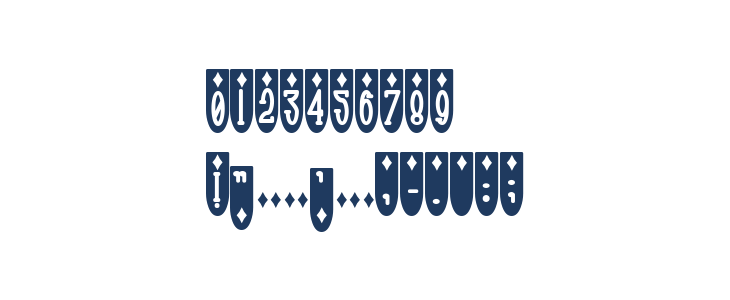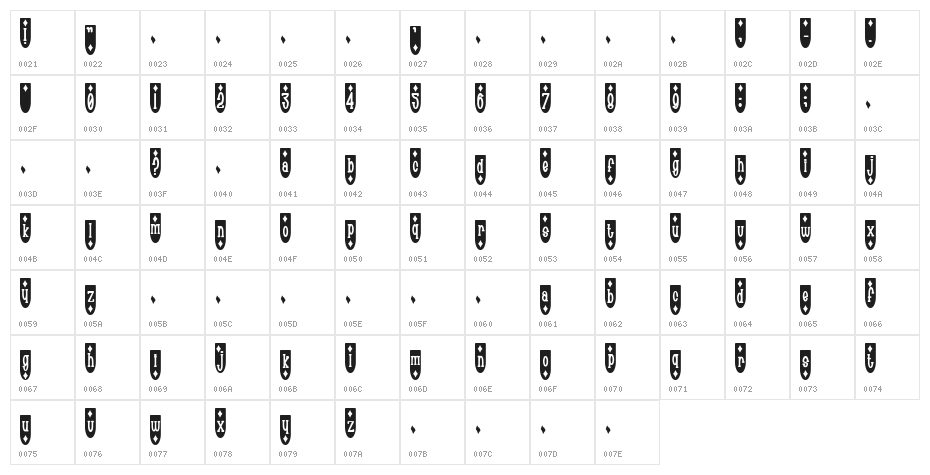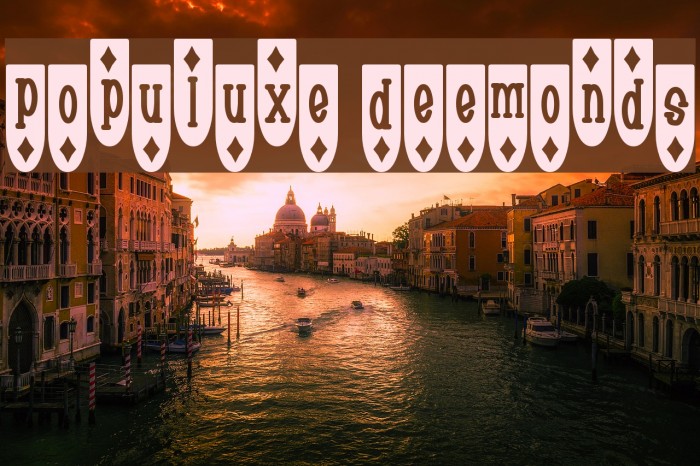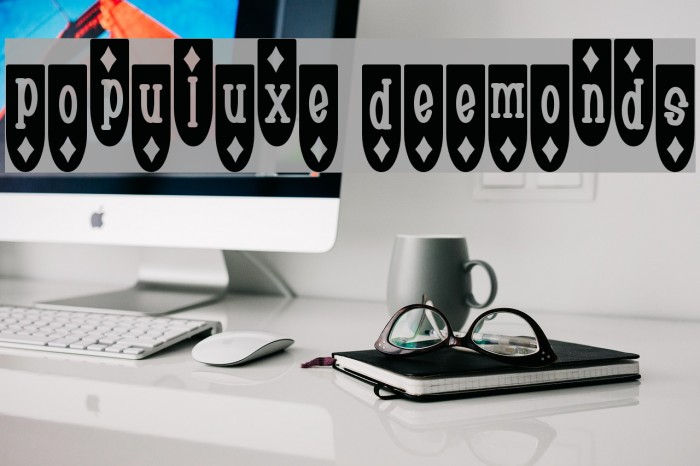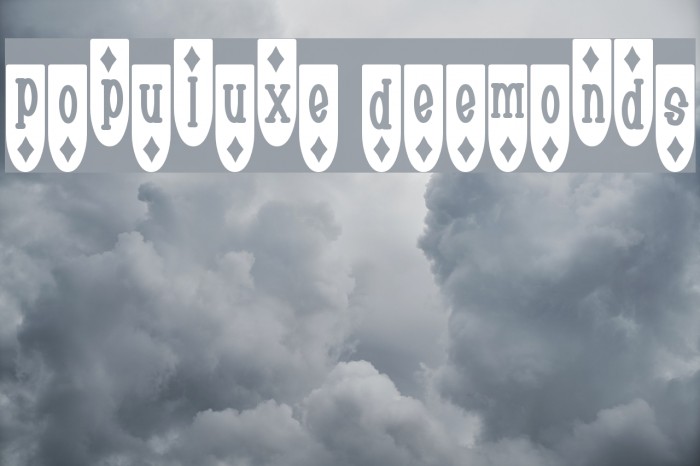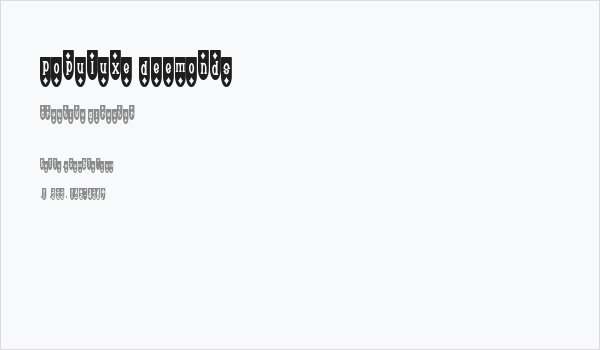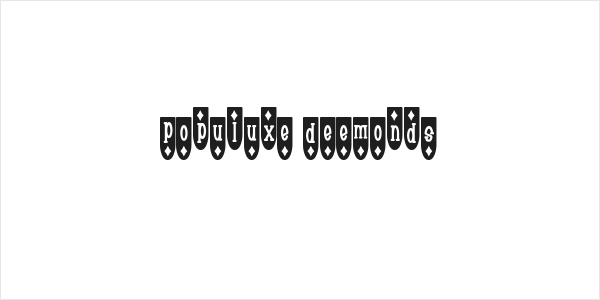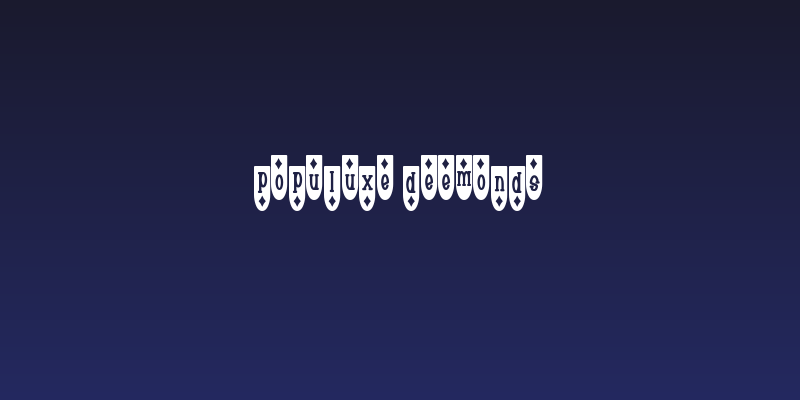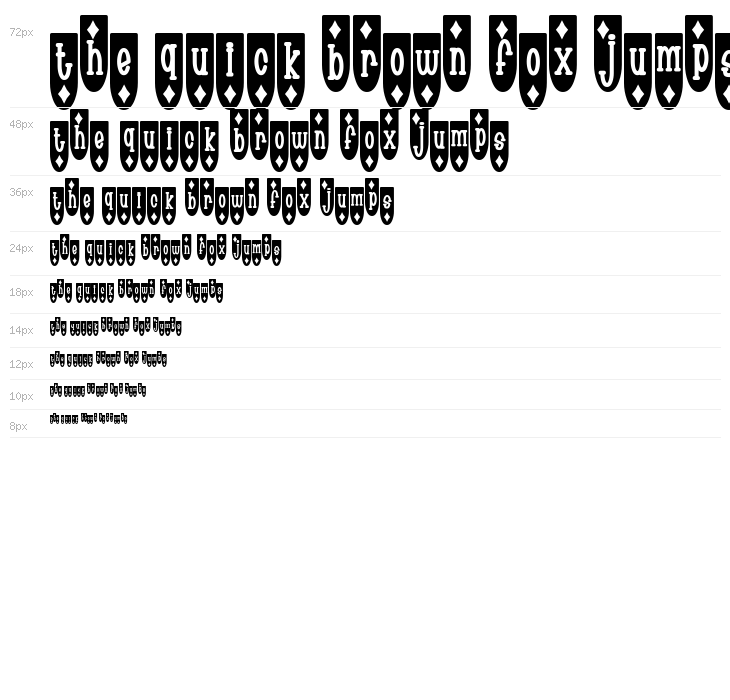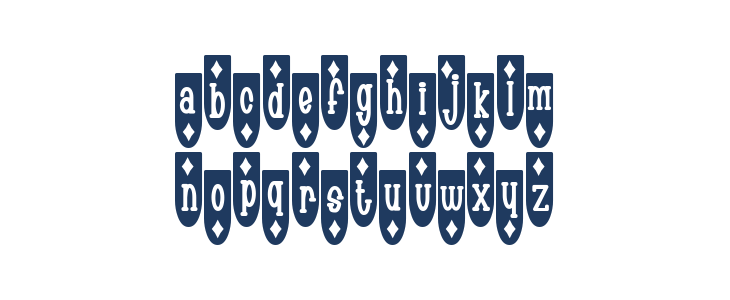
Populuxe Deemonds Font
Populuxe Deemonds Description
This font features a bold and decorative style with a unique shield-like background for each character. The letters are enclosed within these shapes, which adds a distinct and eye-catching element. The typeface includes both uppercase and lowercase letters, numbers, and a selection of special characters. Each character is adorned with diamond-shaped embellishments, enhancing its ornate appearance. The overall design is reminiscent of medieval or heraldic motifs, making it suitable for projects that require a touch of historical or fantasy flair.
| Use Case | Logos, Posters, Headlines |
| Proposed Projects | Ideal for fantasy-themed designs, medieval event posters, or historical book covers. |